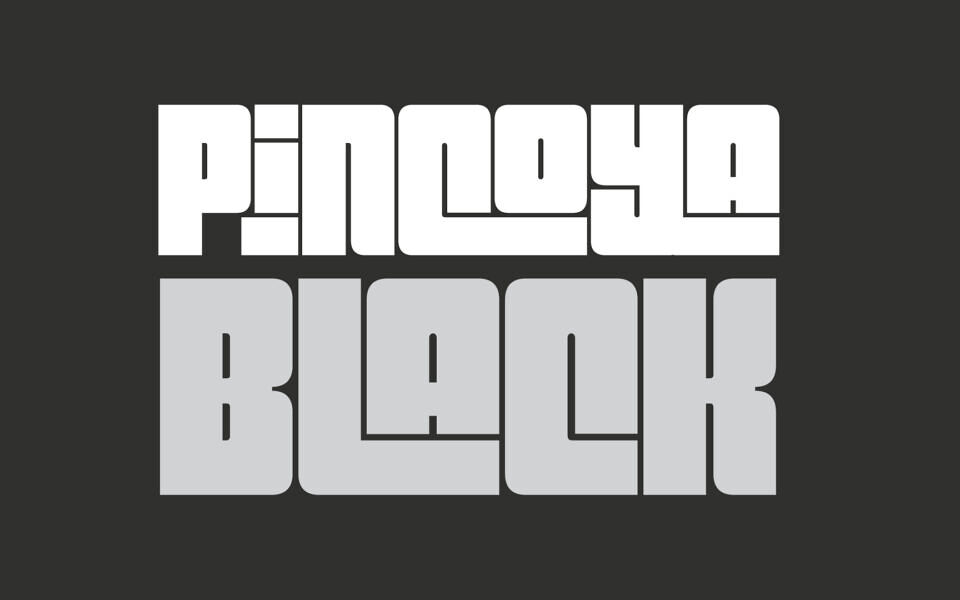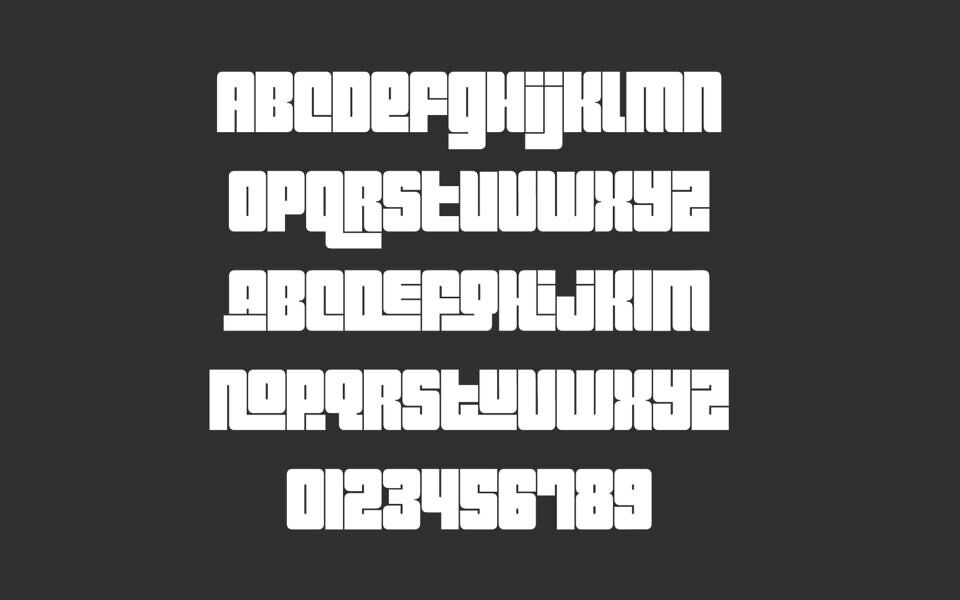
Pincoya Black Font
Pincoya Black is an experimental font inspired by the lettering of a poster from the Spanish Civil War, complemented with graphics developed in “La Unidad Popular” (Chilean political coalition) during the seventies.
Pincoya has many alternate characters in Opentype format that provide multiple options when composing a text. Pincoya is a unicase font, but it offers variation in vowel characters, which are designed to integrate with the consonant characters. It is an ideal font for high impact sentences, logotypes, magazine layouts, poster designs, etc.